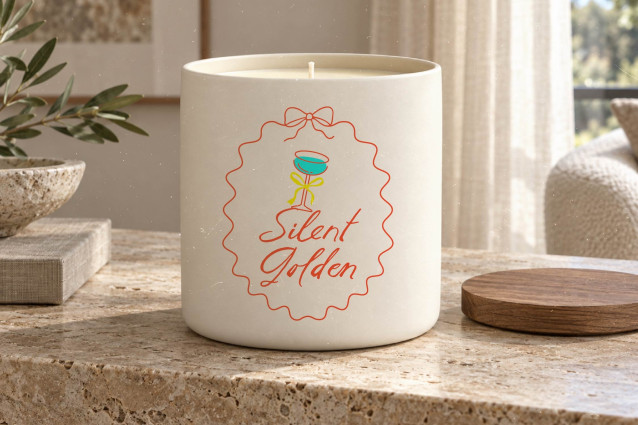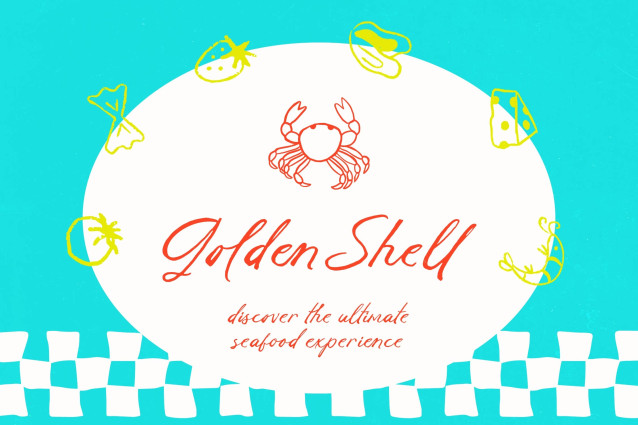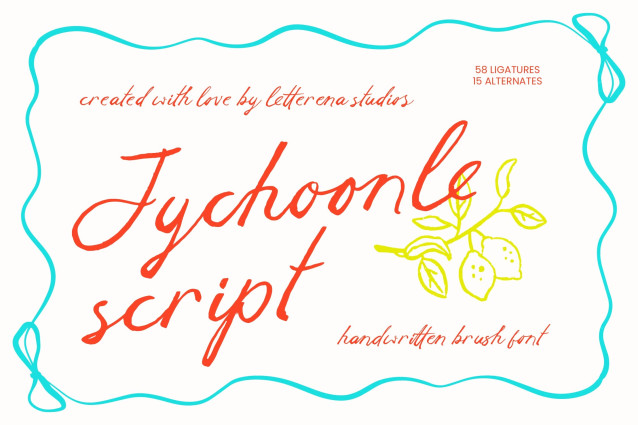
Jychoonle – Handwritten Brush Font is a premium script designed to bring a sense of hand-crafted authenticity to your digital canvas. With its dynamic brush strokes and natural rhythm, this font captures the essence of modern calligraphy while maintaining a clean, professional edge that resonates with contemporary audiences and high-end consumers.
Experience unparalleled design flexibility through a comprehensive set of typographic features that allow for total creative control. This collection includes 58 ligatures and 15 alternates, ensuring that every word feels unique and intentionally composed. With its extensive multilingual support, Jychoonle – Handwritten Brush Font adapts seamlessly across global markets, making it incredibly versatile for international projects and multi-regional marketing campaigns.